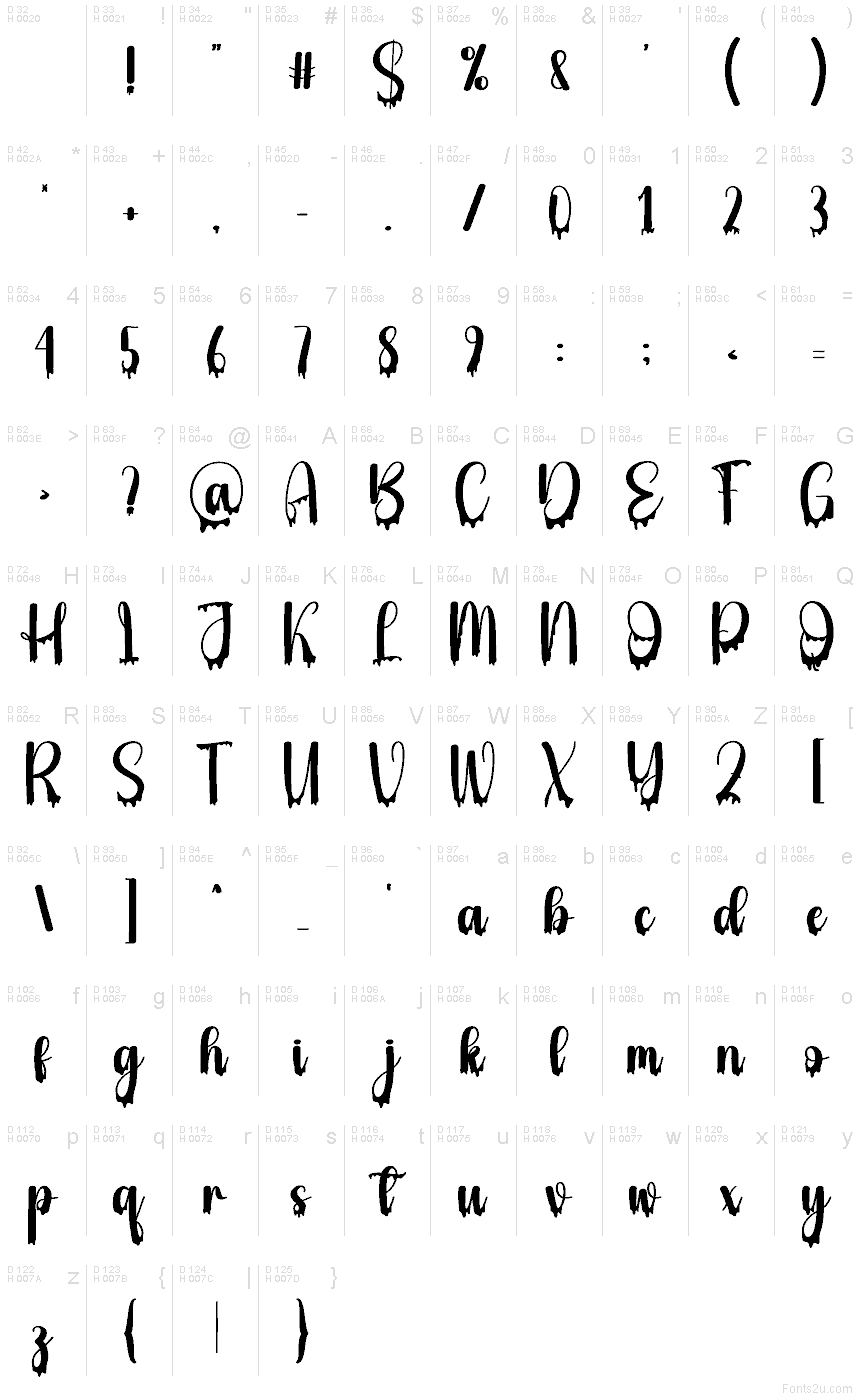
Winter Ghost
Winter Ghost font by Scratchones is a free Halloween display script font. Hand-painted strokes swell and taper like inky brush marks, while dangling drips cling to the bottoms like candle wax or icy specters. The letters bounce with a friendly wobble, landing right between spooky and playful—great when you want chills without the gore.
Using Winter Ghost, headlines snap to attention on party posters, haunted house signage, trick-or-treat bags, seasonal menus, stickers, and social posts. The chunky forms read clearly at larger sizes, letting those gooey tails and smudgy edges shine. For balance, pair this free font with a plain, condensed sans for body copy, and give it generous letter spacing to keep the rhythm airy and legible.